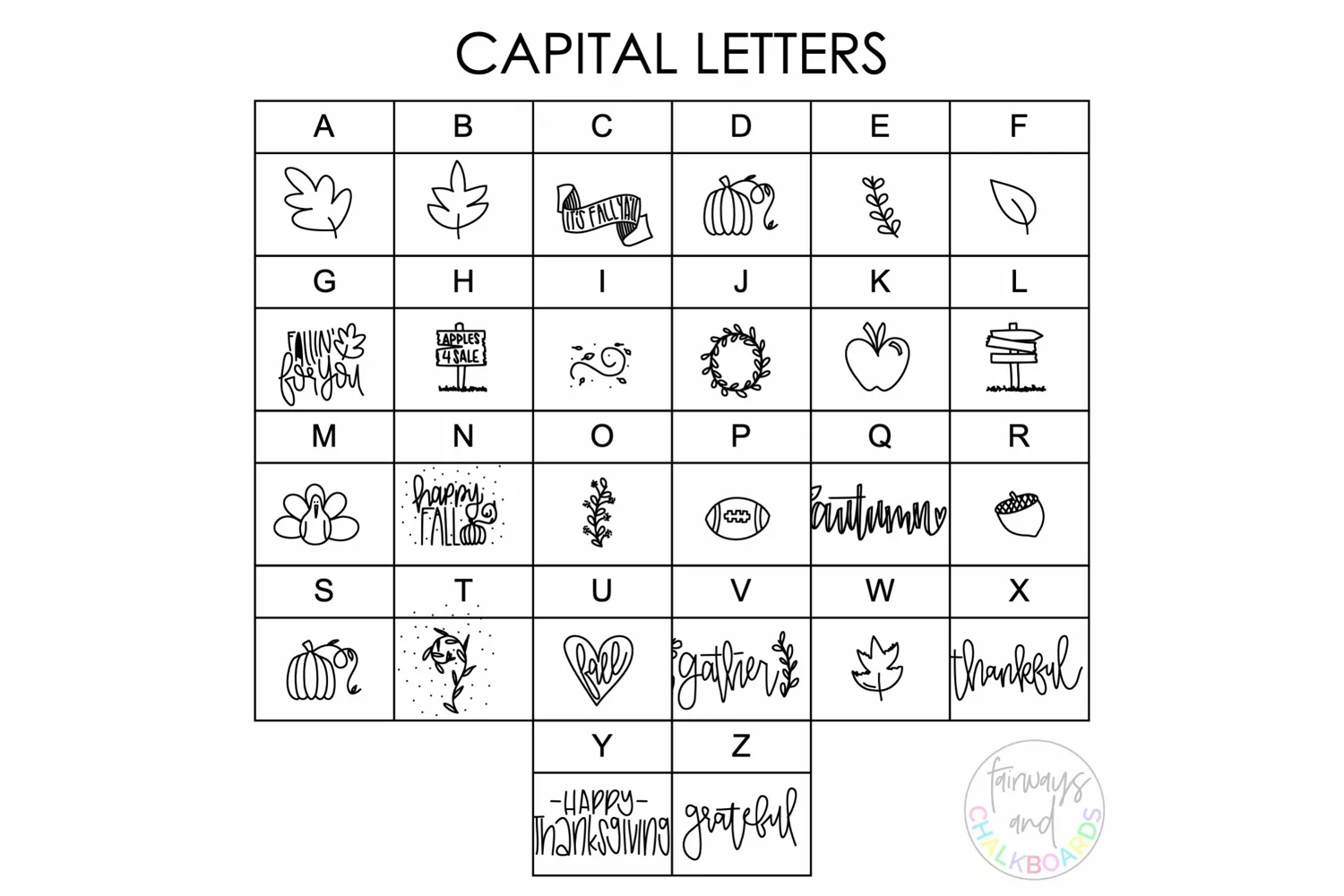
This doodle font is a fun way to add some fall flare to worksheets, newsletters, and so much more! With 52 fall inspired doodles, there are a variety of ways to combine and make it your own!
There are 52 hand drawn doodles, with a font poster included!